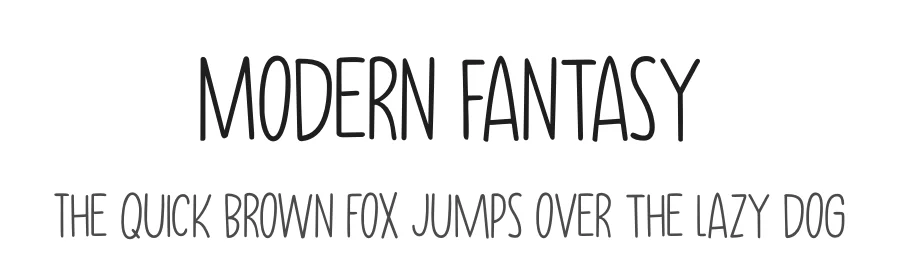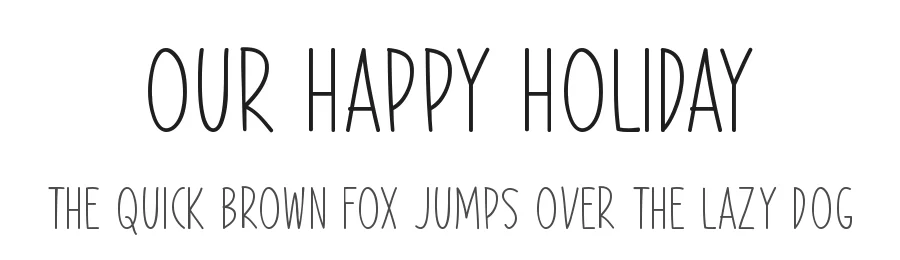
About Smart Duck Font
Smart Duck is a script & handwritten font designed by Khurasan. It includes 116 glyphs, a regular weight, OTF (CFF) format, and 107 languages. Smart Duck is free to download; check the license details on this page before commercial use. Script & handwritten fonts like Smart Duck work best for wedding invitations, greeting cards, signatures, and elegant branding.
Smart Duck Font is a script font that shines as a display or heading face. Pair it with a clean sans-serif or serif font for body text β the contrast creates a clear hierarchy while the two styles stay balanced and easy to read.
Smart Duck Font
Smart Duck Font is a script handwritten typeface by Khurasan, ideal for logos, invitations, branding, and creative projects.